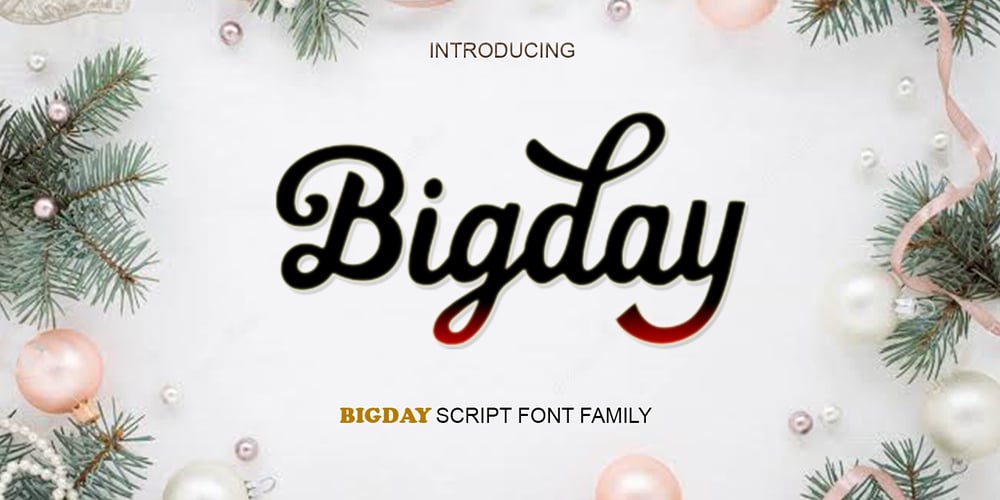
Bigday Font Family was designed by Muammar and published by Scoothtype. Bigday contains 2 styles and family package options. Bigday is a bold modern script with a bright atmosphere. It’s inspired by suburban bars, winter and the city, chilly afternoons with a cocktail in your hand and the sound of crashing snow.Bigday comes with Contextual Alternatives that add variety to the text and help maintain a smooth flow. Contextual Alternative activates automatically. For extra flair, try Alternates or Swash danTails from the glyph palette. Bigday is PUA coded so you can access its alternatives in any graphic design software. This font is versatile and useful for web and print media; think websites, posters, menus, logos, cards, signs, packaging and more. Bigday is friendly, sturdy, and stands out, but most importantly, it’s fun to play.